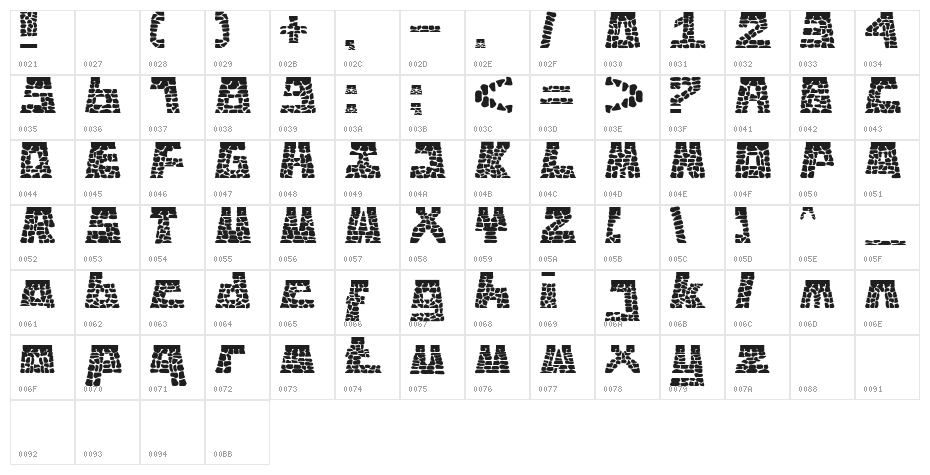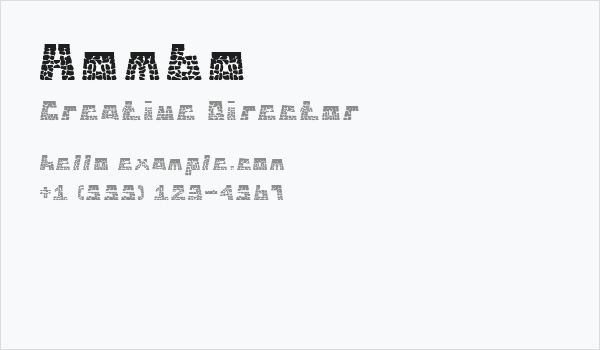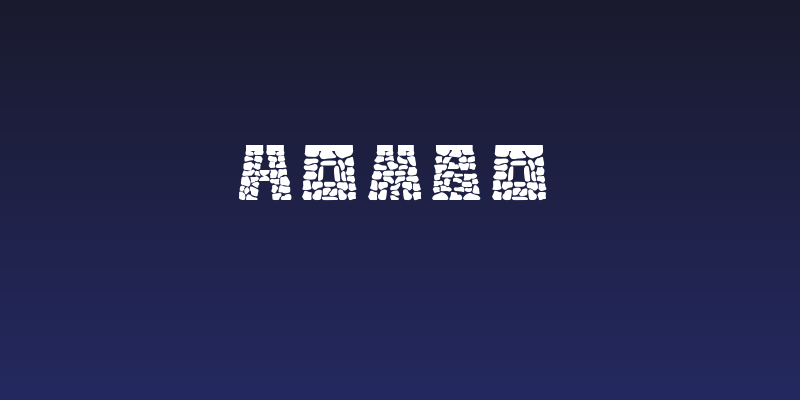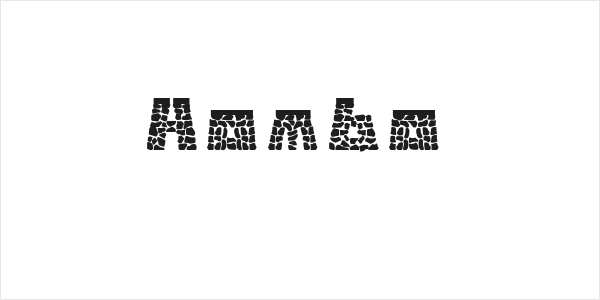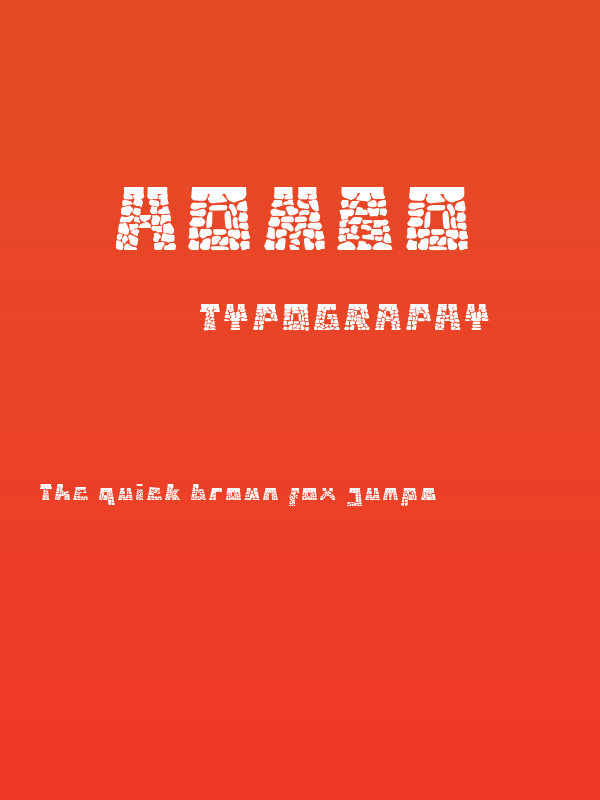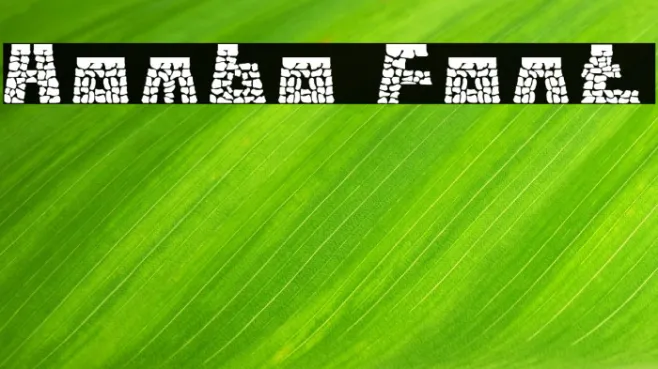
Hombo Font
Hombo Description
This font features a unique, decorative style with characters composed of irregular, stone-like shapes. The design gives an impression of a mosaic or cobblestone pattern, creating a textured and artistic appearance. Each letter and number is distinct, with varying sizes and shapes of the individual elements that form the characters. This font stands out due to its bold and creative design, making it suitable for eye-catching displays. The overall look is playful and unconventional, perfect for projects that require a distinctive and artistic touch.
| Use Case | Headlines, Logos, Artistic projects |
| Proposed Projects | Ideal for artistic posters, creative branding, unique invitations, and decorative headlines. |